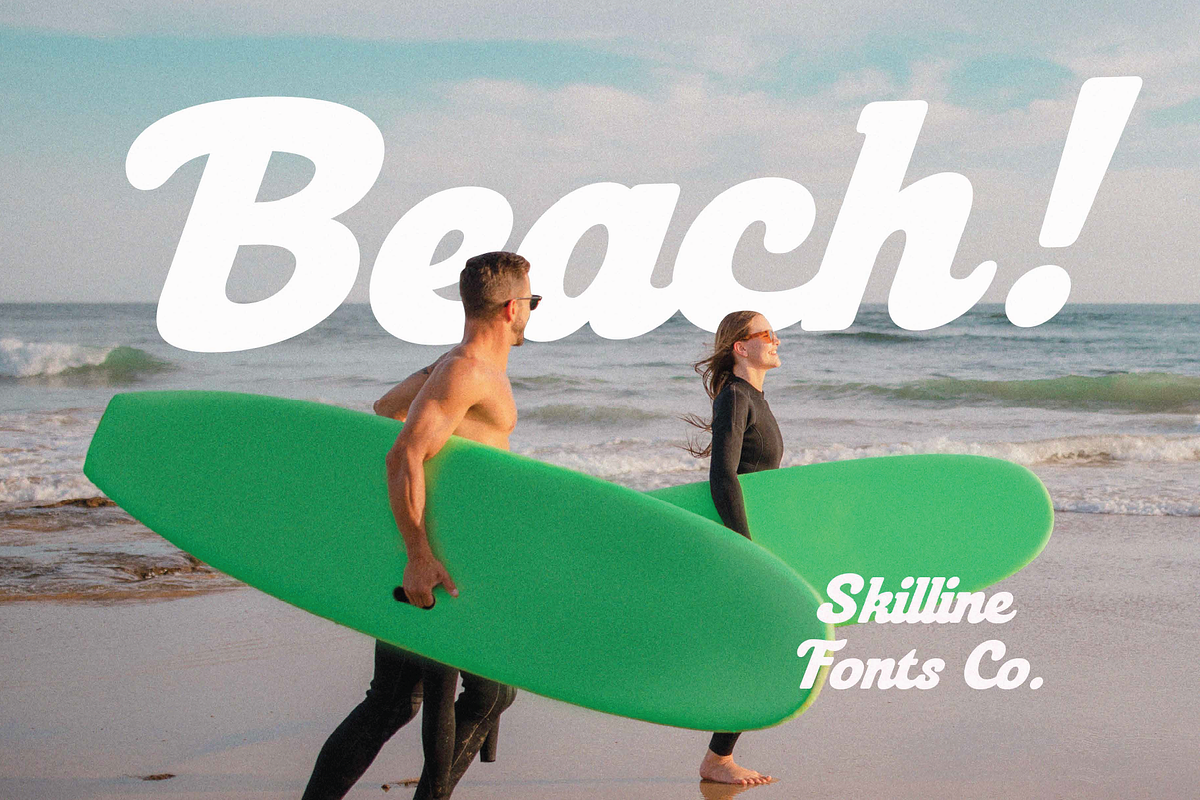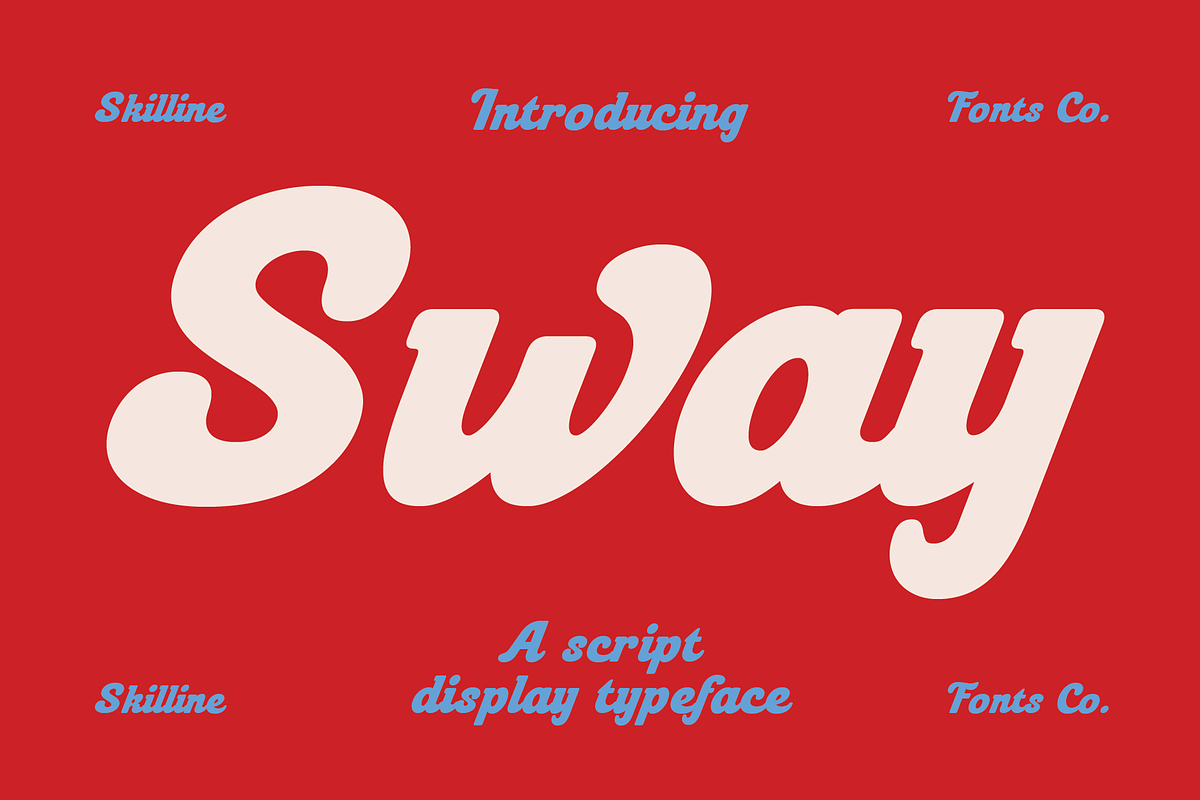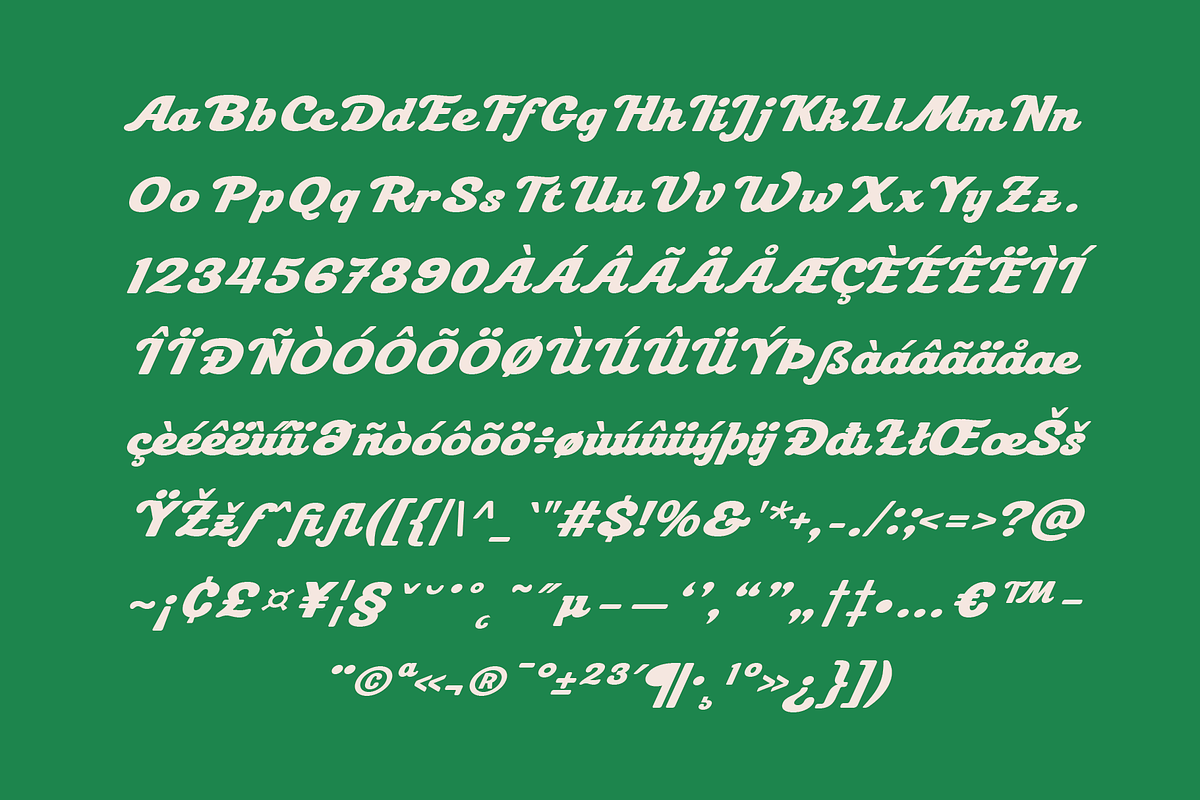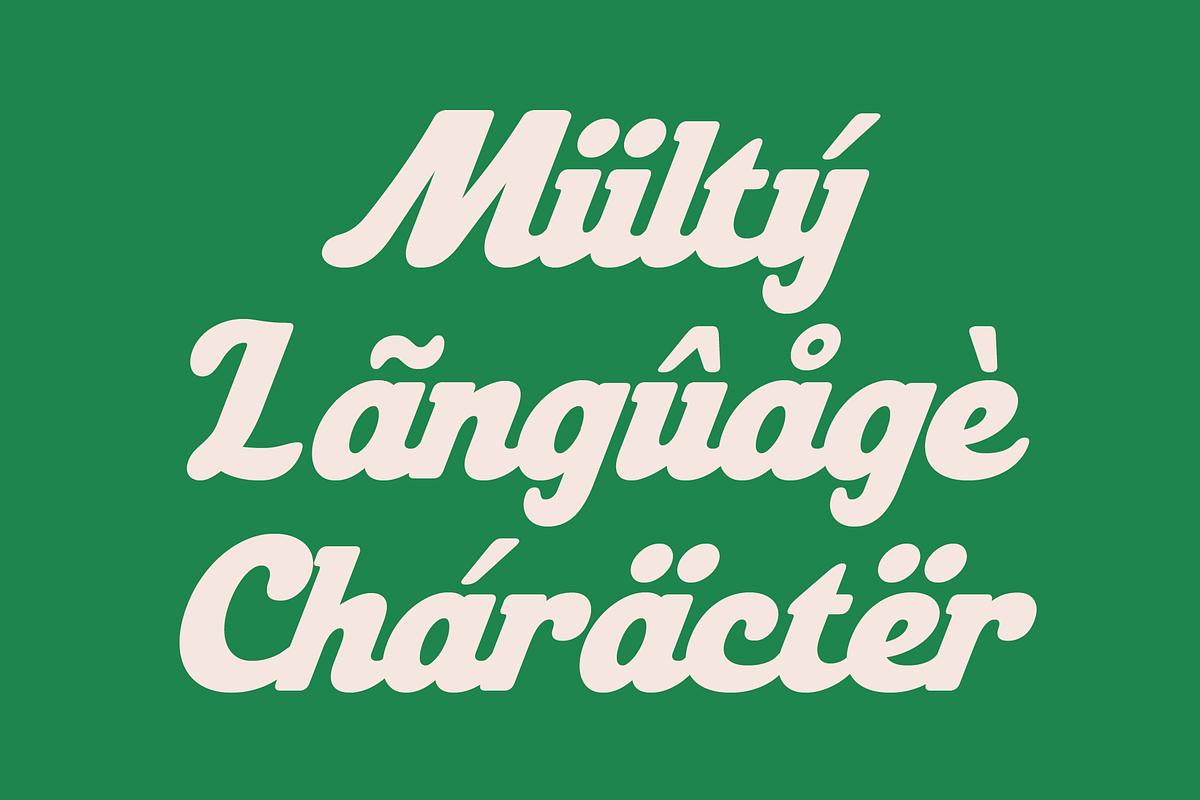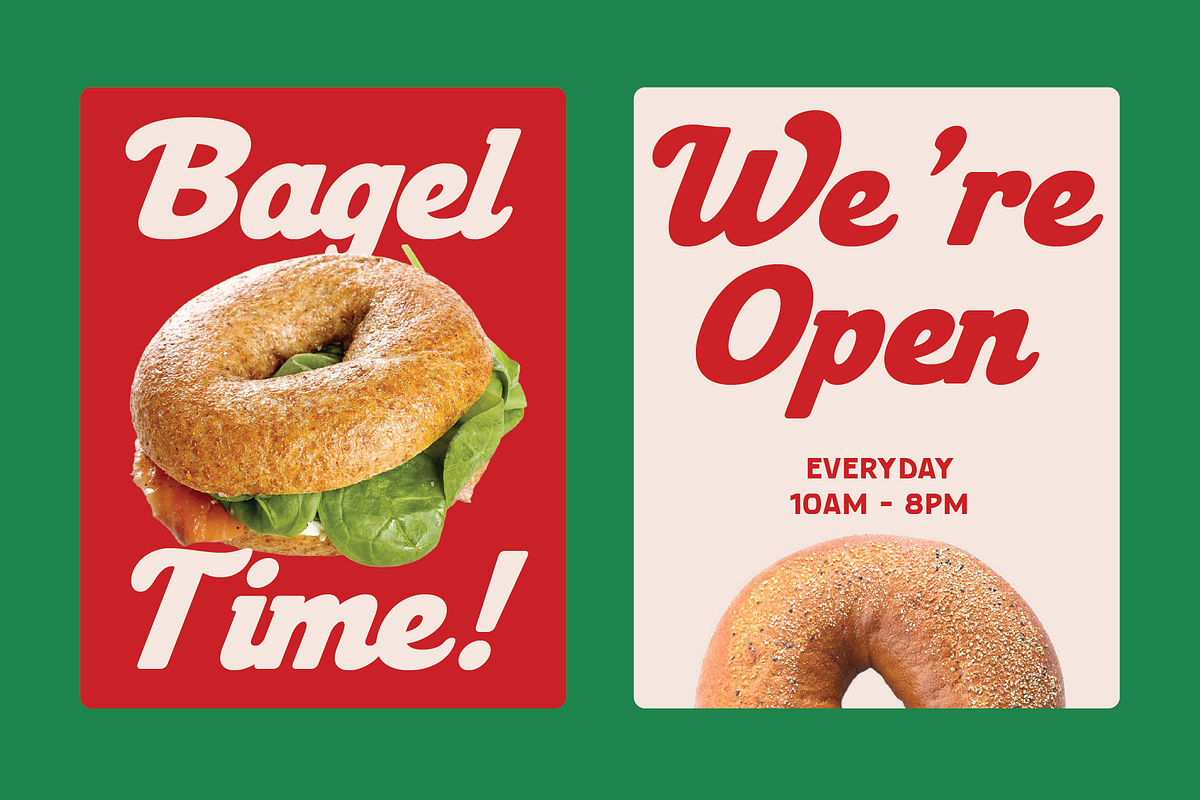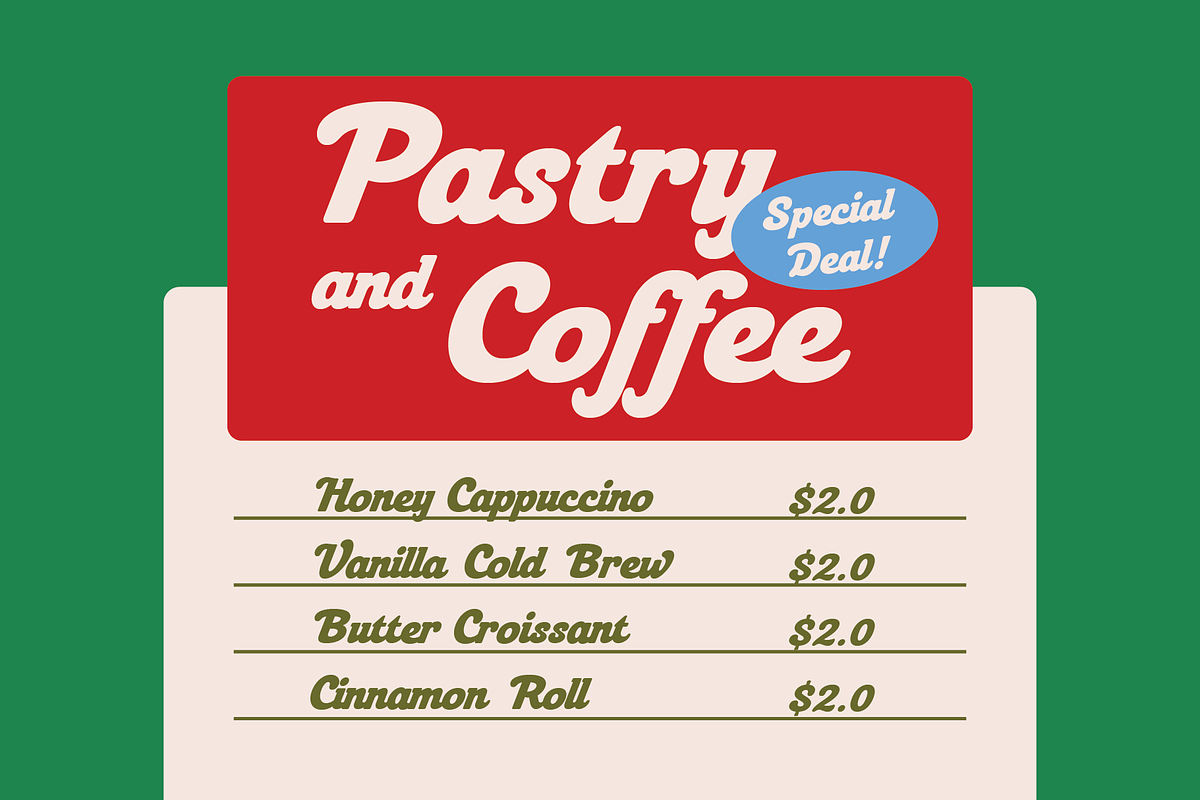
SFC Sway
SFC Sway is a bold display script typeface inspired by retro signage lettering and classic mid-century script styles. The design features broad flowing strokes, rounded terminals, and smooth connections that create a soft, approachable appearance with a strong sense of movement and visual rhythm.
Carefully crafted with balanced curves, substantial letterforms, and refined stroke transitions, the typeface delivers a warm and expressive character. Its nostalgic influences, compact structure, and fluid handwritten qualities contribute to a cohesive personality with timeless appeal.
Retro Display Script
Smooth Rounded Edges
Warm Expressive Character
Multi Language